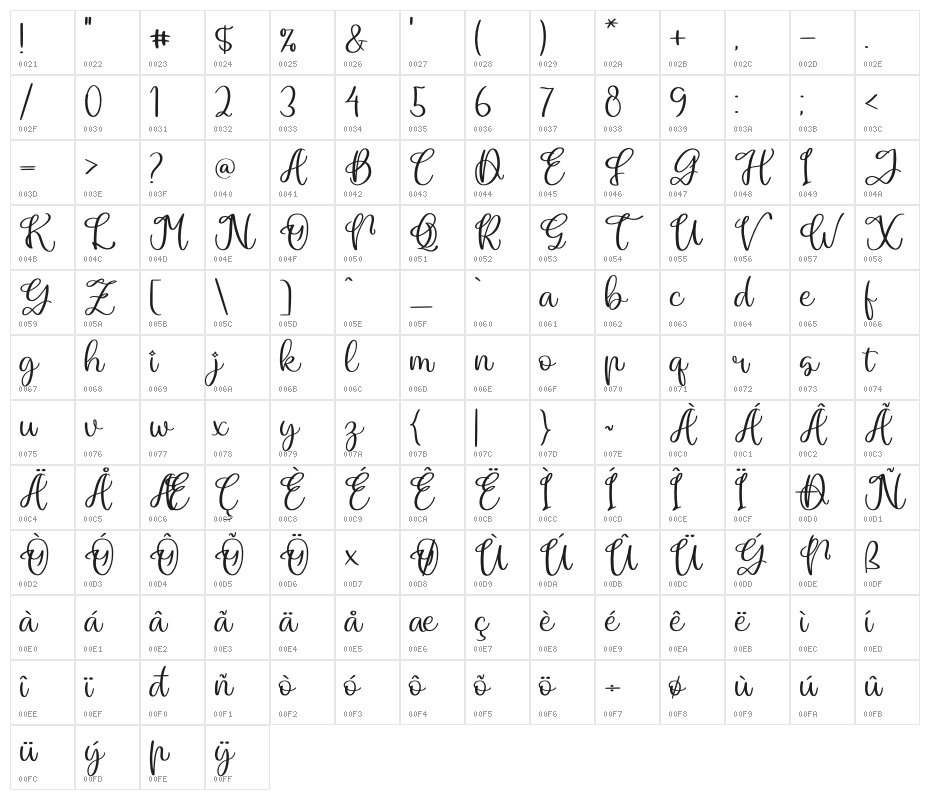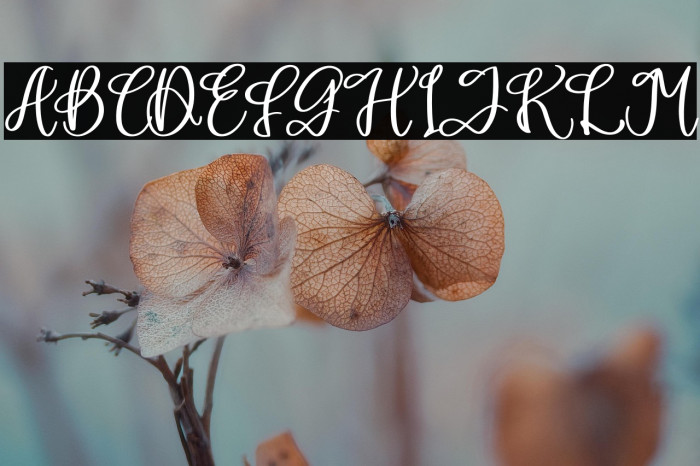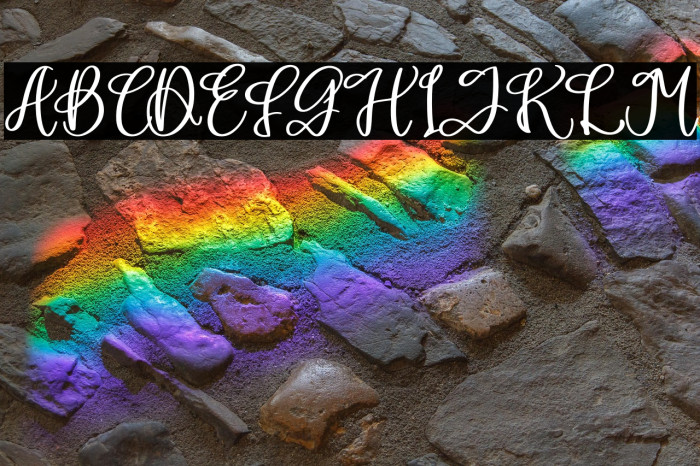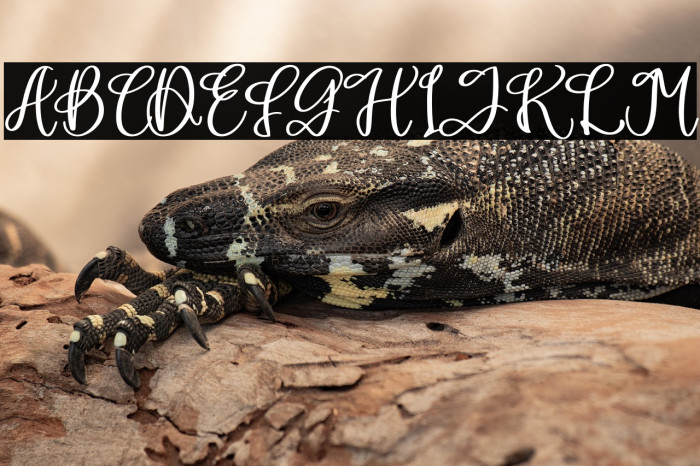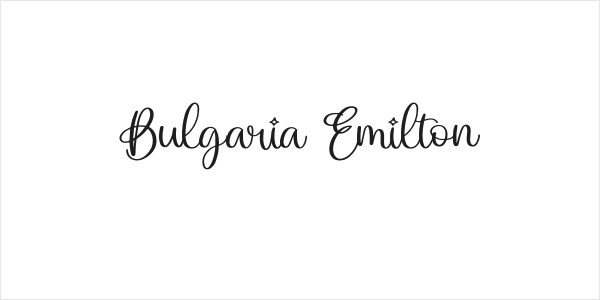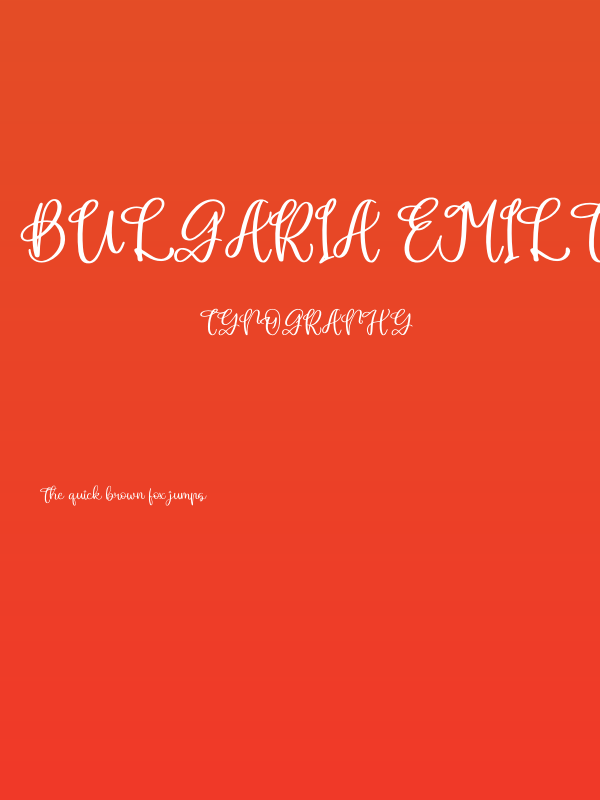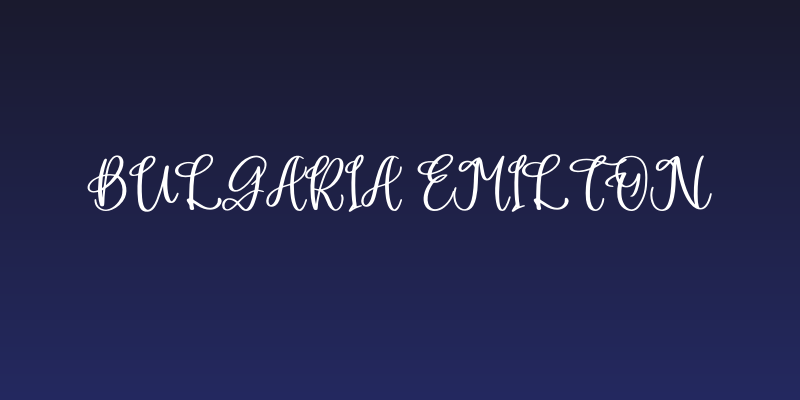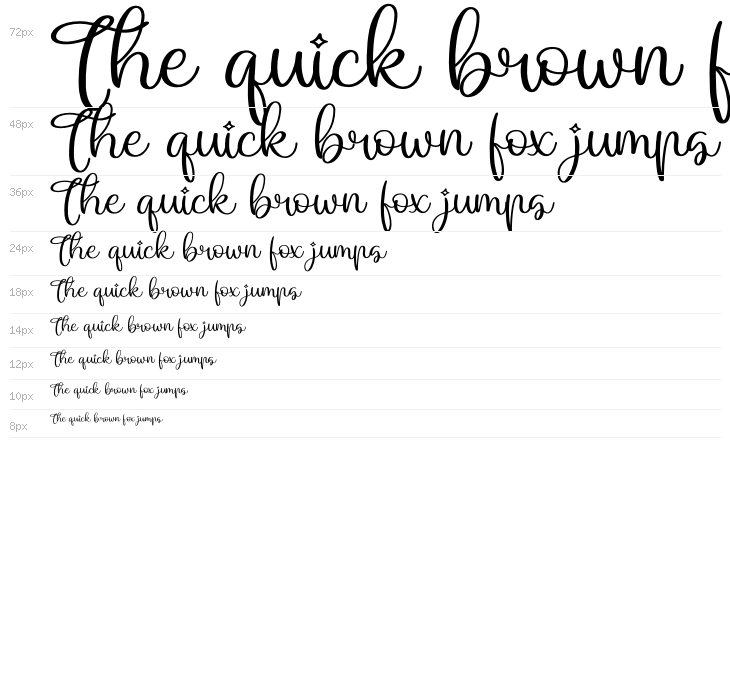
Bulgaria Emilton Font
Bulgaria Emilton Description
This font features a flowing, cursive style with elegant loops and swirls, giving it a handwritten appearance. The uppercase letters are characterized by their ornate and decorative flair, while the lowercase letters maintain a consistent, smooth flow. The numbers and special characters are designed to match the overall aesthetic, providing a cohesive look. The strokes are moderately thick, ensuring readability while maintaining the font's artistic charm. This font exudes a sense of sophistication and creativity, making it suitable for various design projects.